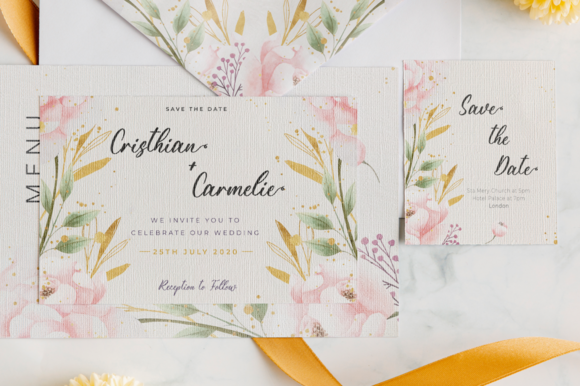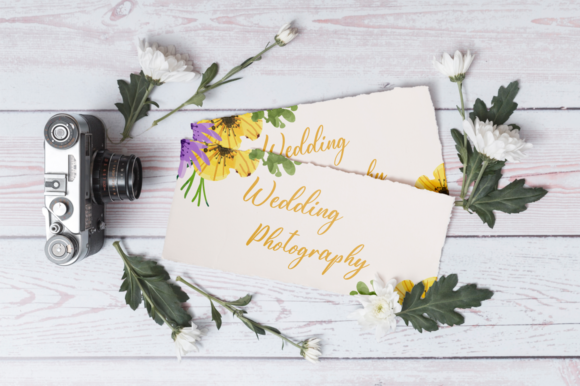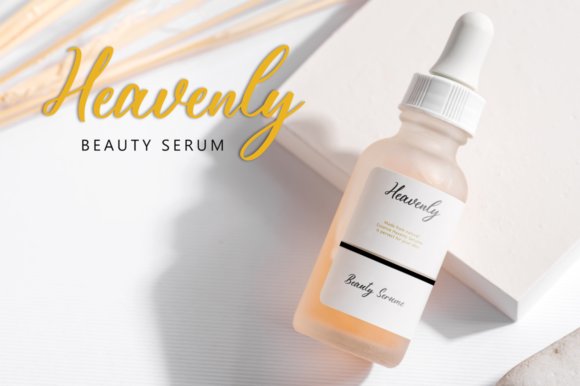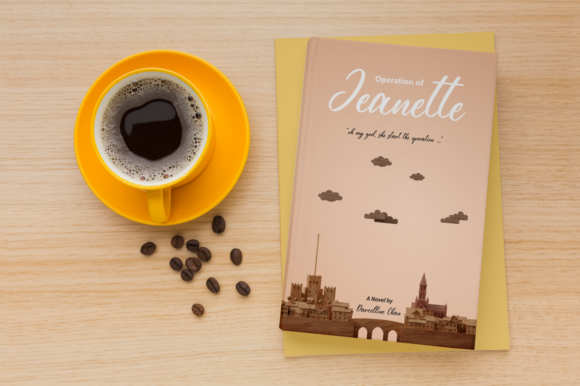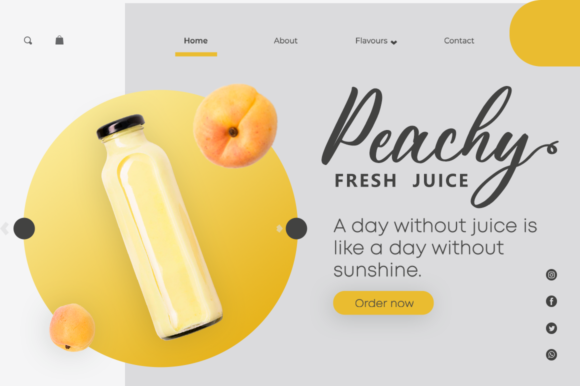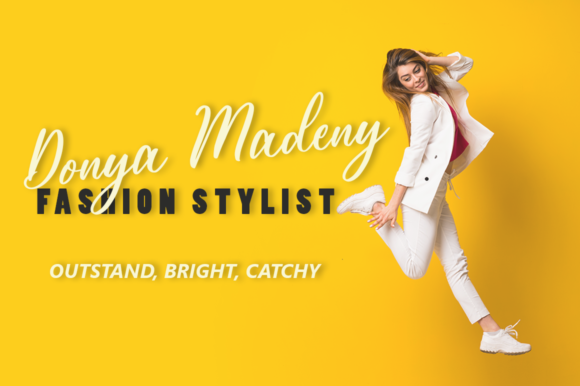
Introduction to Nadine Font
Nadine is a beautiful light handwritten font with a unique feel and a stunning impact.
Key Features of Nadine Font
Nadine Font offers exceptional quality and versatility, making it a valuable addition to your design toolkit. Whether you’re creating for personal projects or commercial use, Nadine Font delivers professional results.